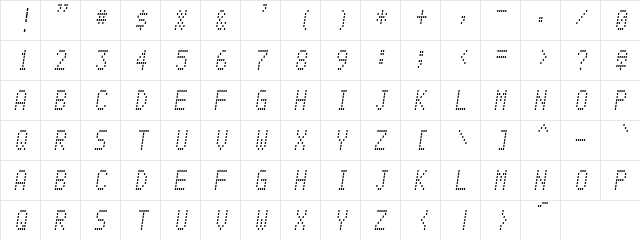
Arranged Blocks Regular
Design Context for Arranged Blocks Typeface
Arranged Blocks is a composed and adaptable typeface that performs quietly and consistently across a wide range of design contexts.